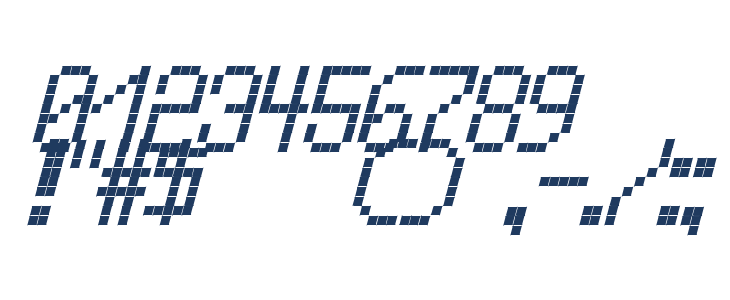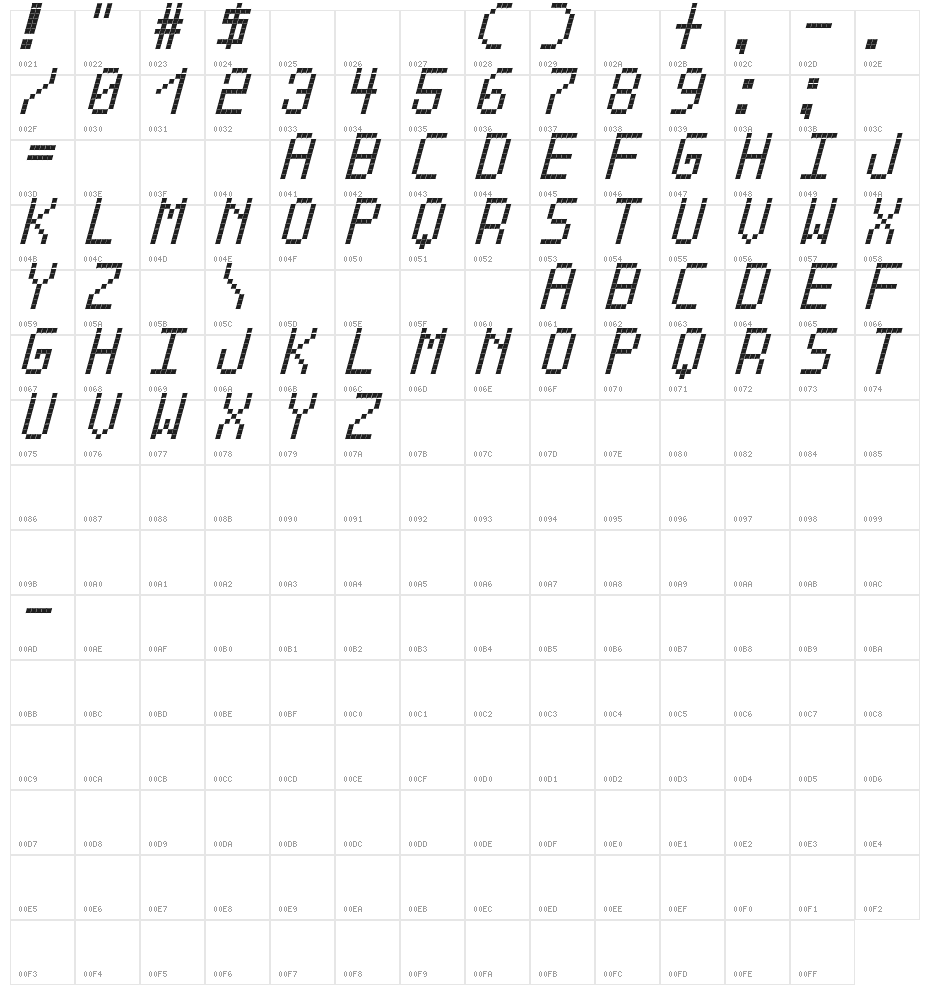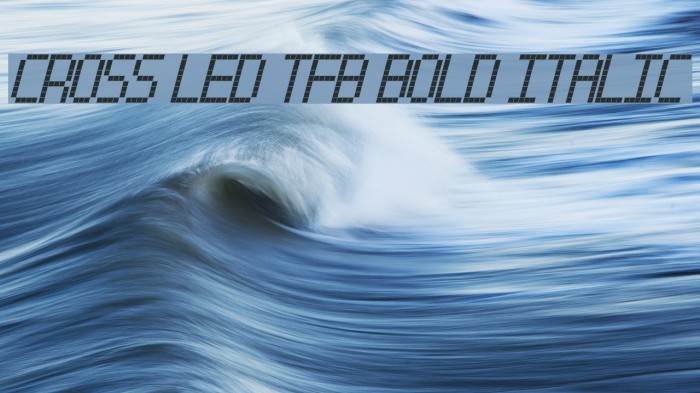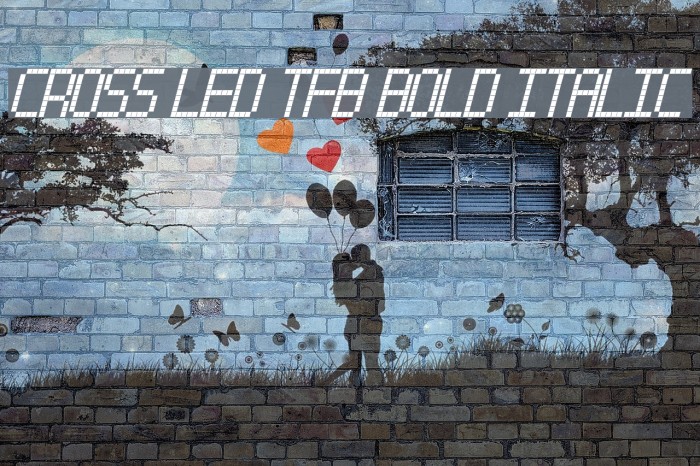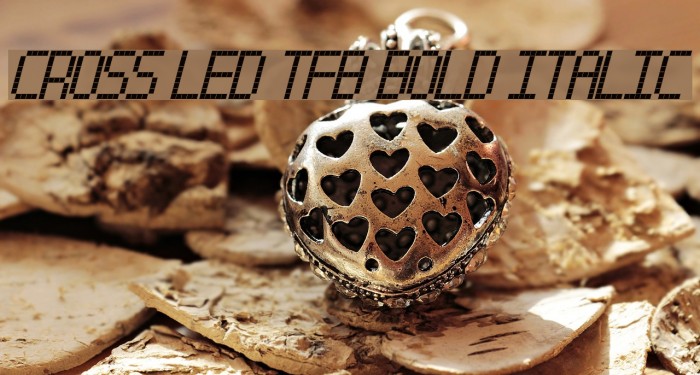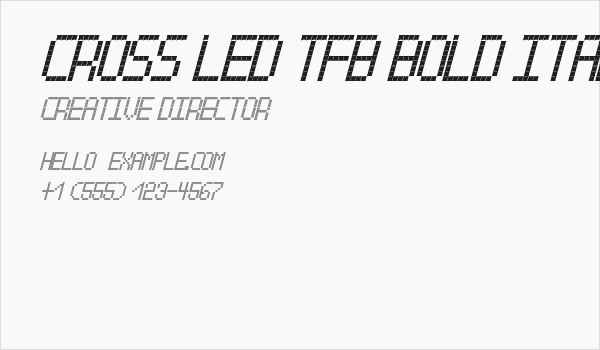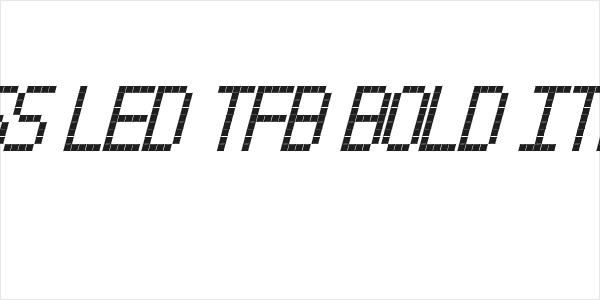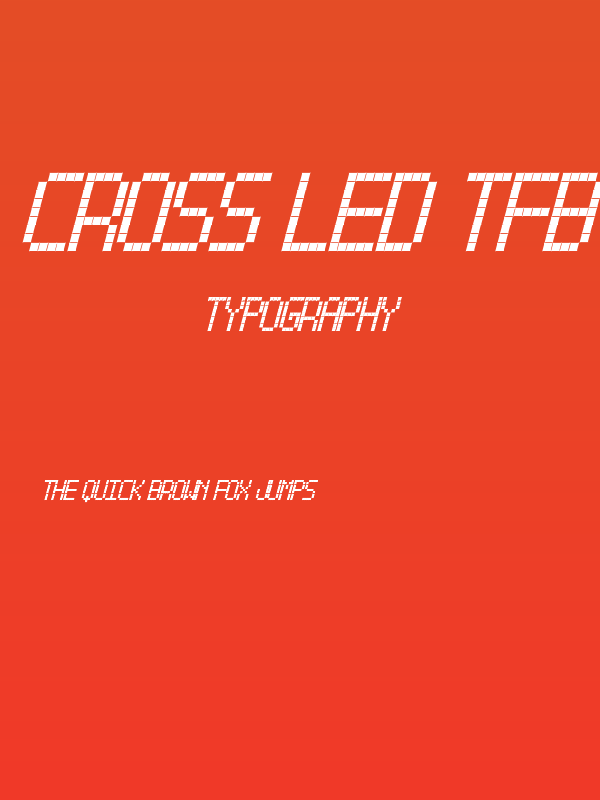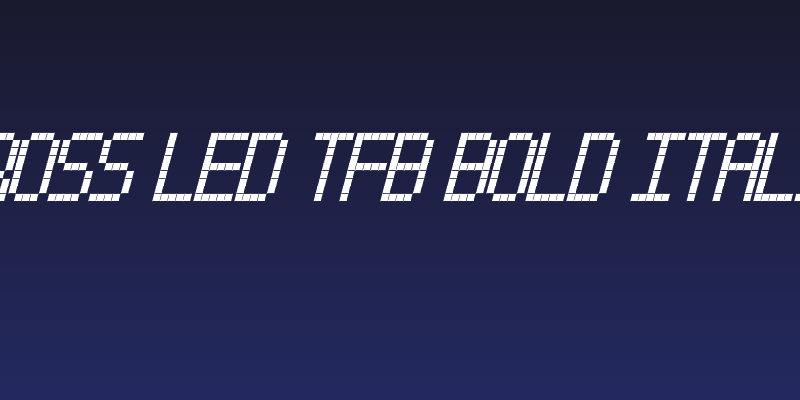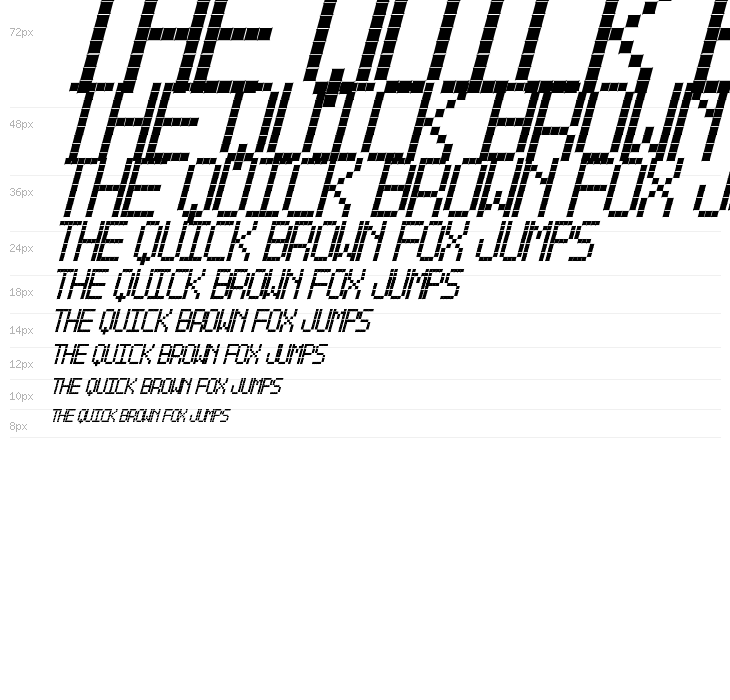
Cross led tfb bold Italic Font
Cross led tfb bold Italic Description
This font features a bold, italicized style with a unique pixelated design that mimics the appearance of LED displays. Each character is composed of small square blocks, giving it a digital and modern aesthetic. The uppercase and lowercase letters maintain a consistent structure, while the numerals and special characters complement the overall design. The font's geometric and angular shapes create a futuristic look, making it ideal for tech-related projects or digital-themed designs.
| Use Case | Headlines, Logos, Digital displays |
| Proposed Projects | Ideal for digital-themed designs, tech-related branding, video game interfaces, and modern posters. |